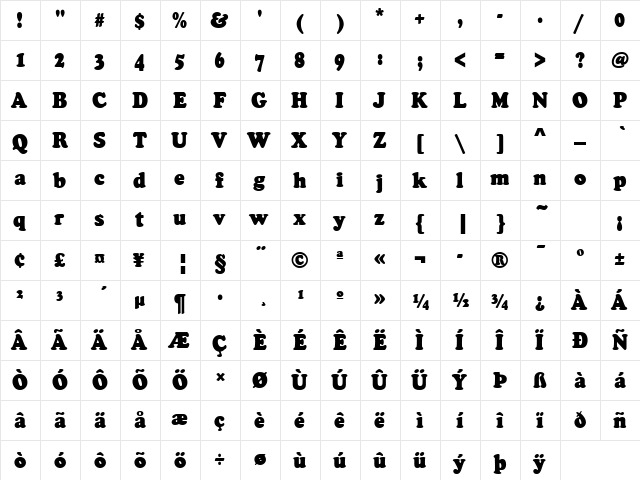
CooperBlaDCon Regular
Design Context for CooperBlaDCon Typeface
CooperBlaDCon takes a measured approach to typography — its balanced proportions and neutral character make it a reliable workhorse for both digital and print work.